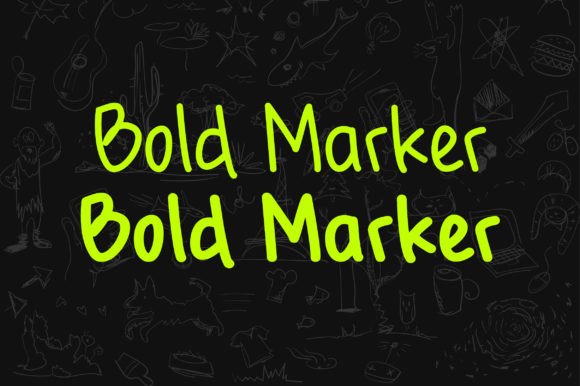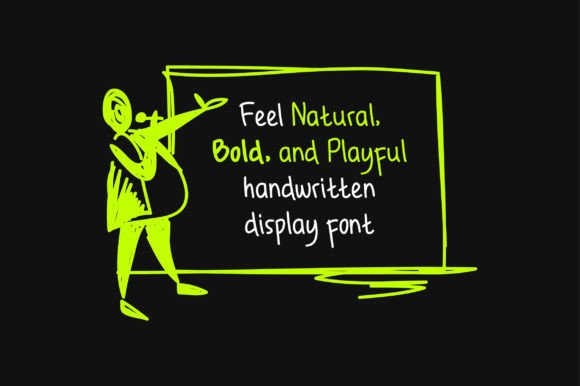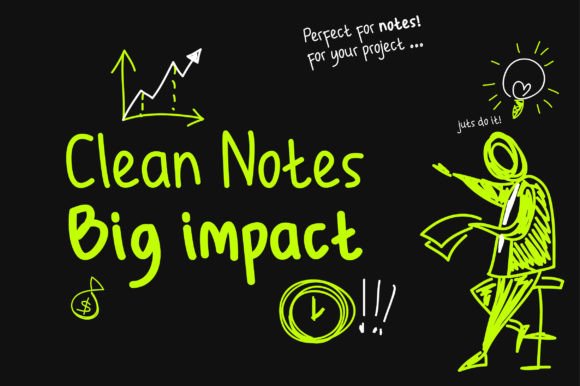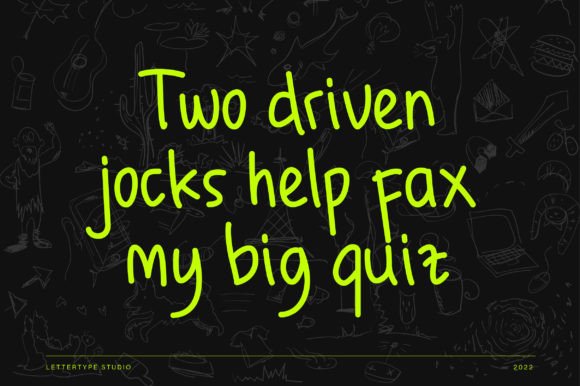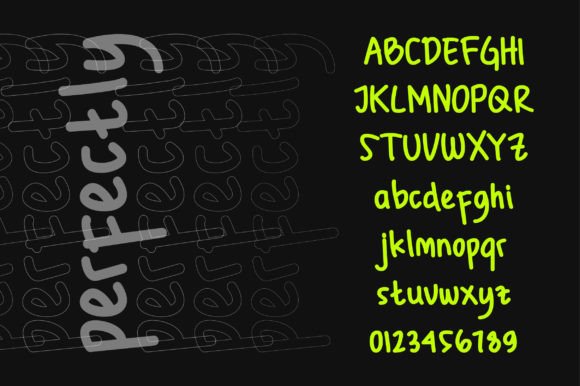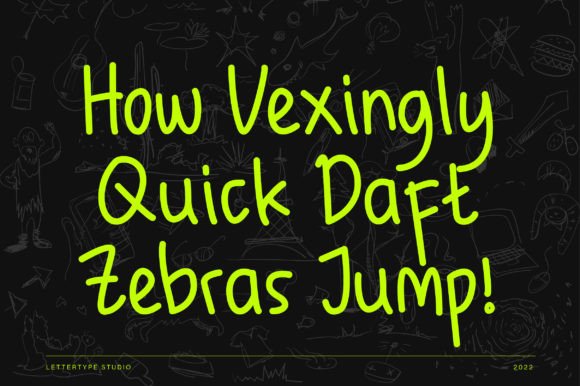
Introducing Bold Marker: The Ultimate Display Font for Creative Projects
Are you tired of using the same old fonts for your creative projects? Do you want to add a touch of playfulness and boldness to your designs? Look no further than Bold Marker, a natural, bold, and playful display font that’s perfect for making a statement. In this article, we’ll take a closer look at Bold Marker and explore its features, benefits, and uses.
What is Bold Marker?
Bold Marker is a casual, bold, and playful font designed to help you create eye-catching headlines, logotypes, and branding materials. This font is perfect for designers, crafters, and marketers who want to add a touch of personality to their work. With its unique and quirky style, Bold Marker is sure to grab attention and leave a lasting impression.
Key Features of Bold Marker
So, what makes Bold Marker so special? Here are some of its key features:
- Uppercase and Lowercase Letters: Bold Marker includes both uppercase and lowercase letters, making it perfect for creating headlines, titles, and body text.
- Punctuation and Symbols: The font includes a range of punctuation marks and symbols, allowing you to add extra flair to your designs.
- Numerals: Bold Marker also includes numerals, making it perfect for creating invoices, receipts, and other numerical-based designs.
- Playful and Bold: The font’s playful and bold style makes it perfect for creating eye-catching designs that stand out from the crowd.
Uses of Bold Marker
So, what can you use Bold Marker for? The possibilities are endless! Here are some ideas to get you started:
- Headlines and Titles: Use Bold Marker to create bold and eye-catching headlines and titles for your blog posts, articles, and social media updates.
- Logotypes and Branding: Create a unique and memorable logo for your brand using Bold Marker.
- Apparel and Merchandise: Use Bold Marker to create custom t-shirts, hoodies, and other merchandise for your brand or business.
- Invitations and Party Decor: Create custom invitations, party decor, and other event materials using Bold Marker.
- Packaging and Advertising: Use Bold Marker to create eye-catching packaging and advertising materials that stand out on store shelves.
Benefits of Using Bold Marker
So, why should you choose Bold Marker for your creative projects? Here are some benefits of using this amazing font:
- Unique and Memorable: Bold Marker is a unique and memorable font that’s sure to grab attention and leave a lasting impression.
- Versatile: The font is versatile and can be used for a range of creative projects, from headlines and titles to logotypes and branding materials.
- Easy to Read: Despite its bold and playful style, Bold Marker is easy to read and understand, making it perfect for body text and other written content.
- Customizable: Bold Marker can be customized to fit your brand’s style and personality, making it perfect for creating unique and memorable designs.
In conclusion, Bold Marker is a natural, bold, and playful display font that’s perfect for creative projects. With its unique and quirky style, this font is sure to grab attention and leave a lasting impression. Whether you’re a designer, crafter, or marketer, Bold Marker is a great choice for anyone who wants to add a touch of personality to their work. So why wait? Download Bold Marker today and start creating amazing designs that stand out from the crowd!